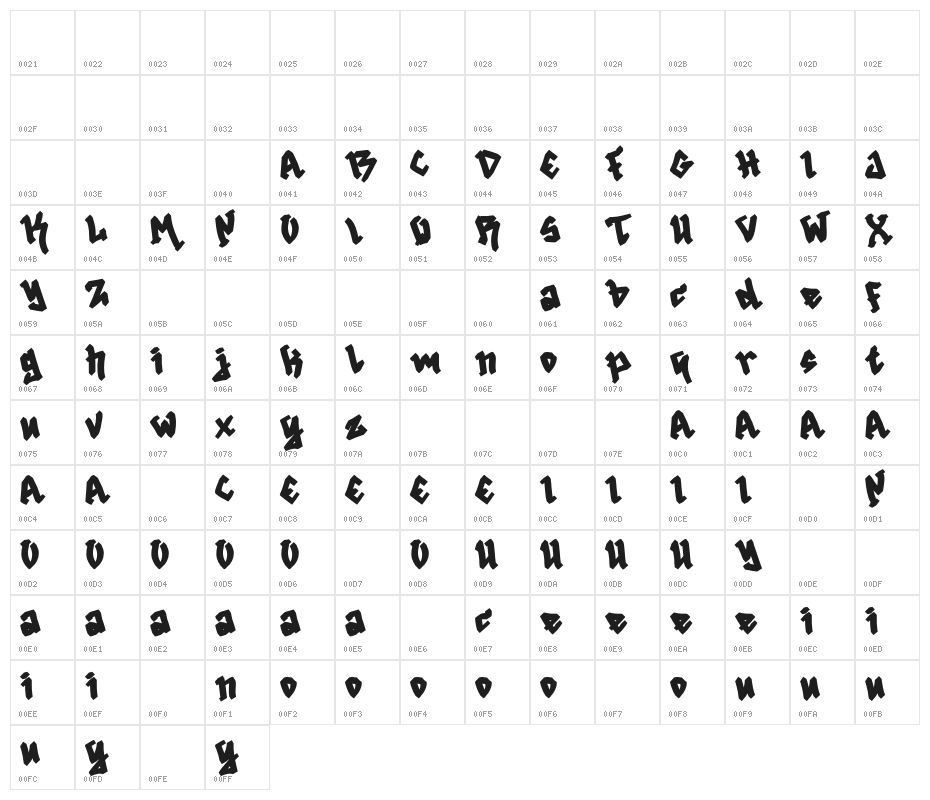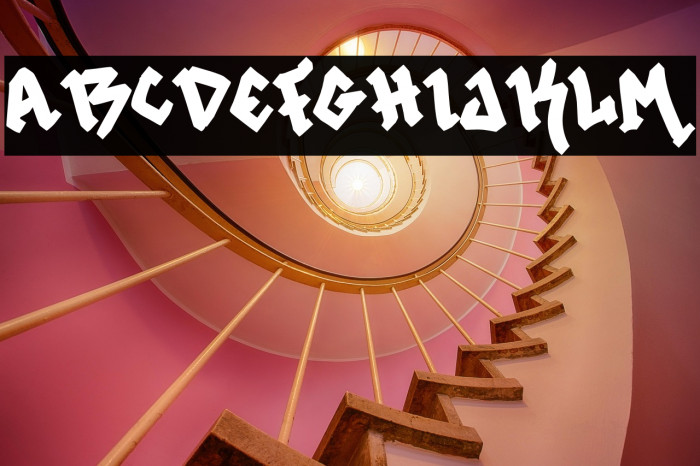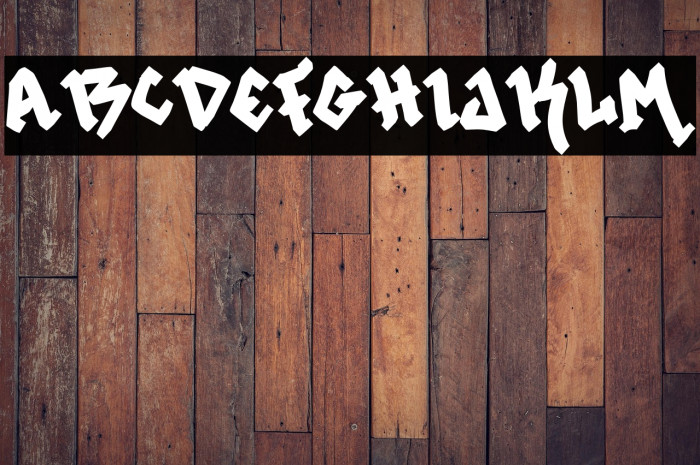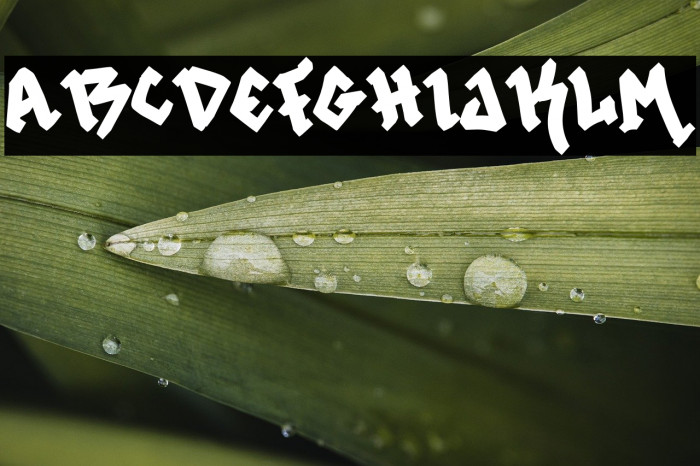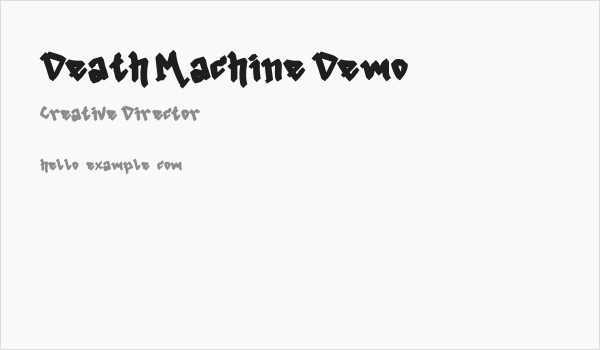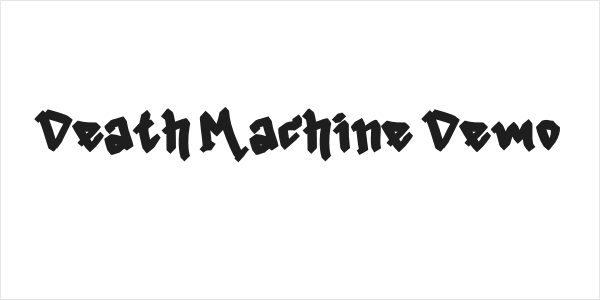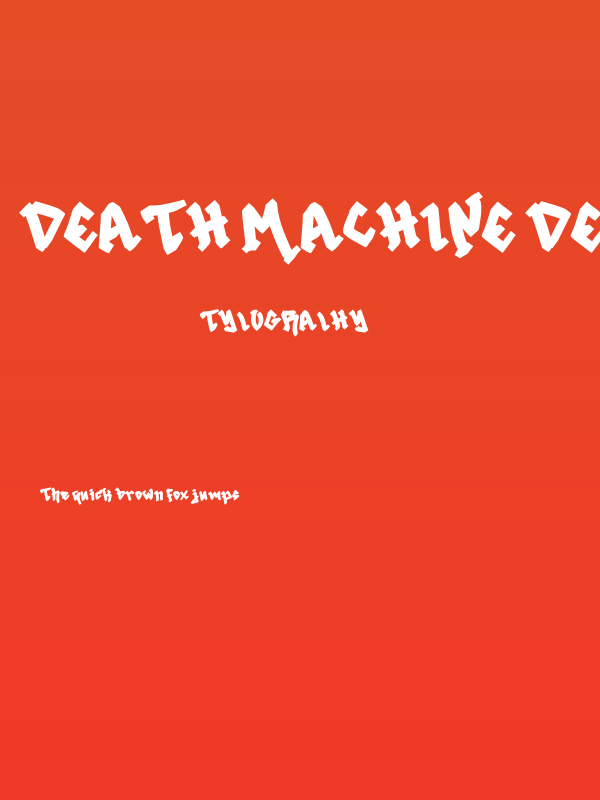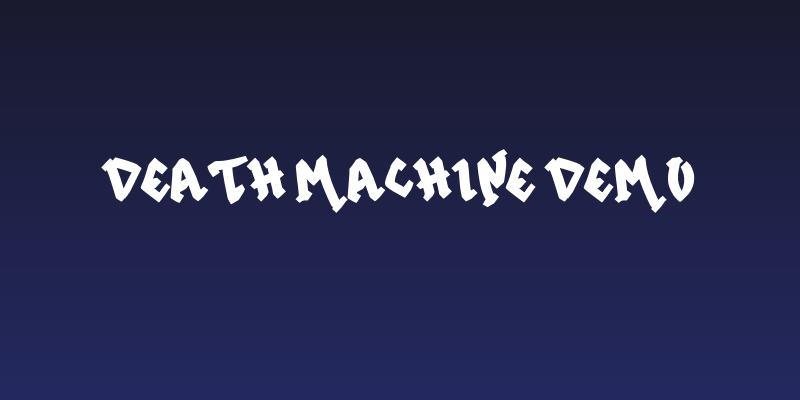
Death Machine Demo Font
Death Machine Demo Description
A bold, angular font with a gothic, aggressive style, featuring sharp edges and a heavy weight.
| Overall Style | Decorative, Gothic |
| Use Case | Logos, Headlines |
| Proposed Projects | Album covers, posters, branding for edgy or alternative themes. |